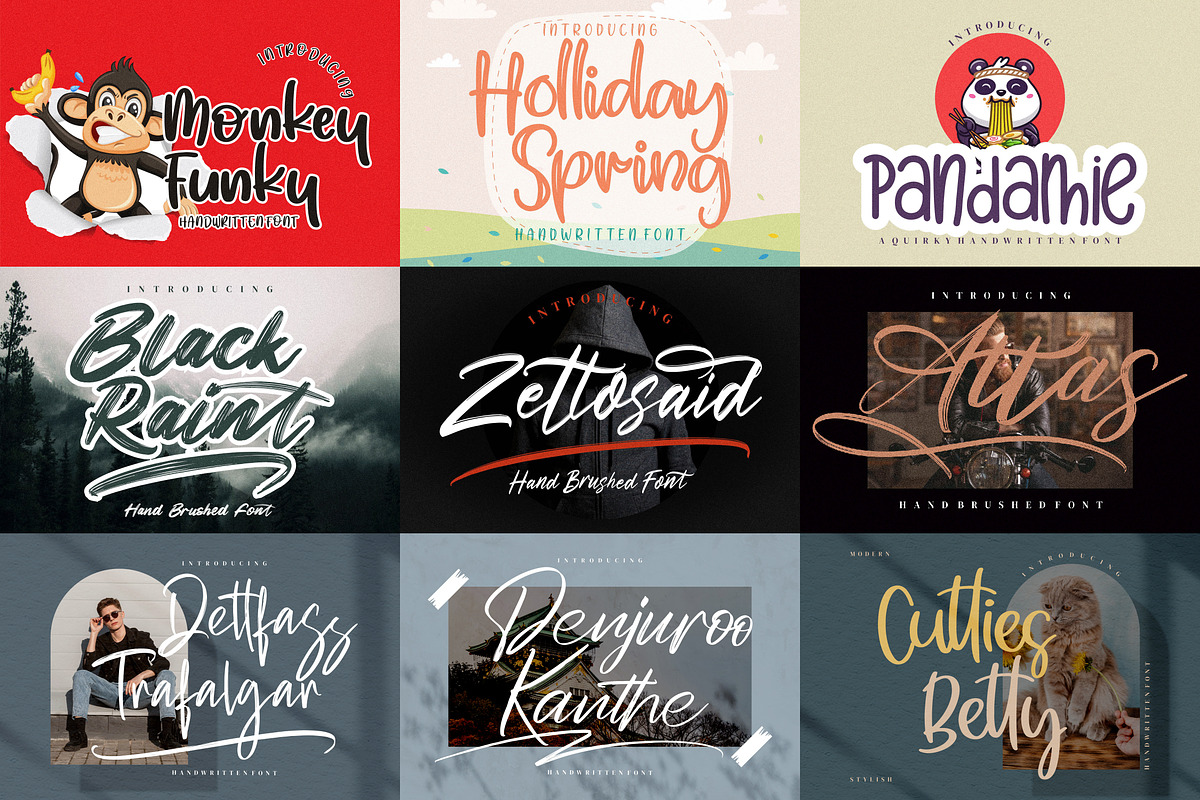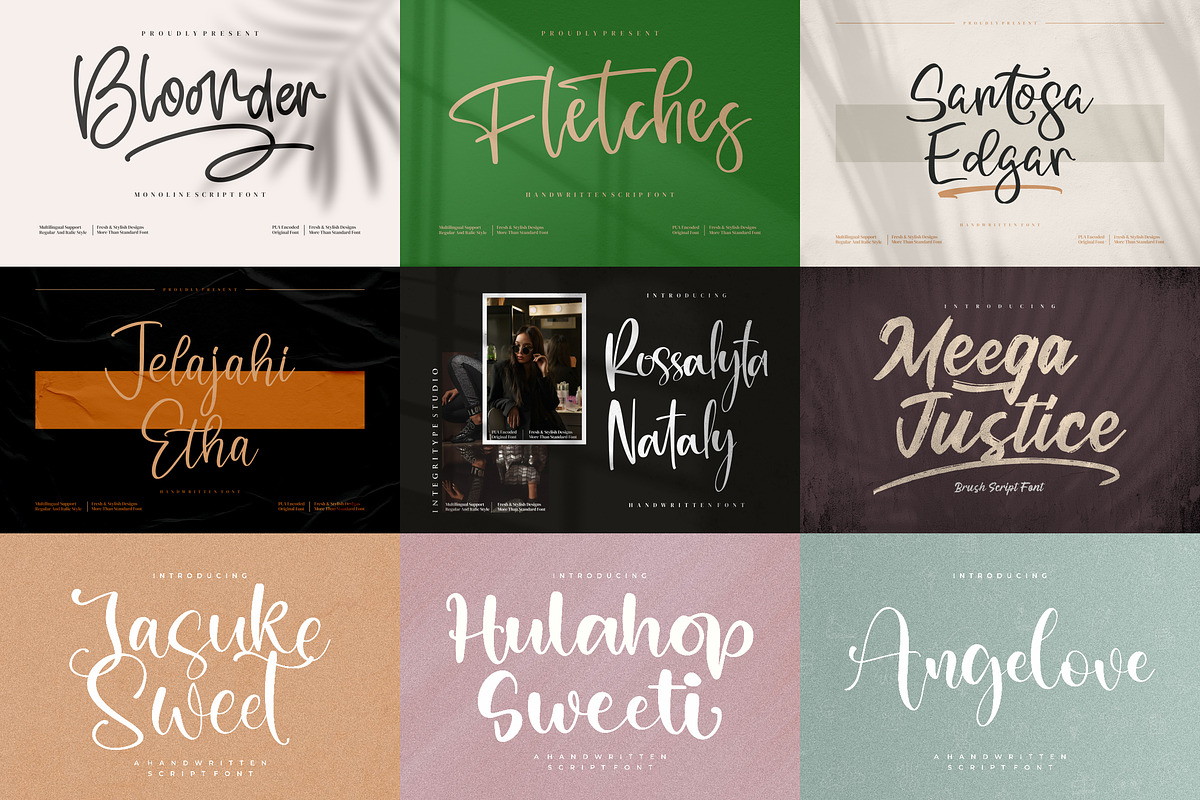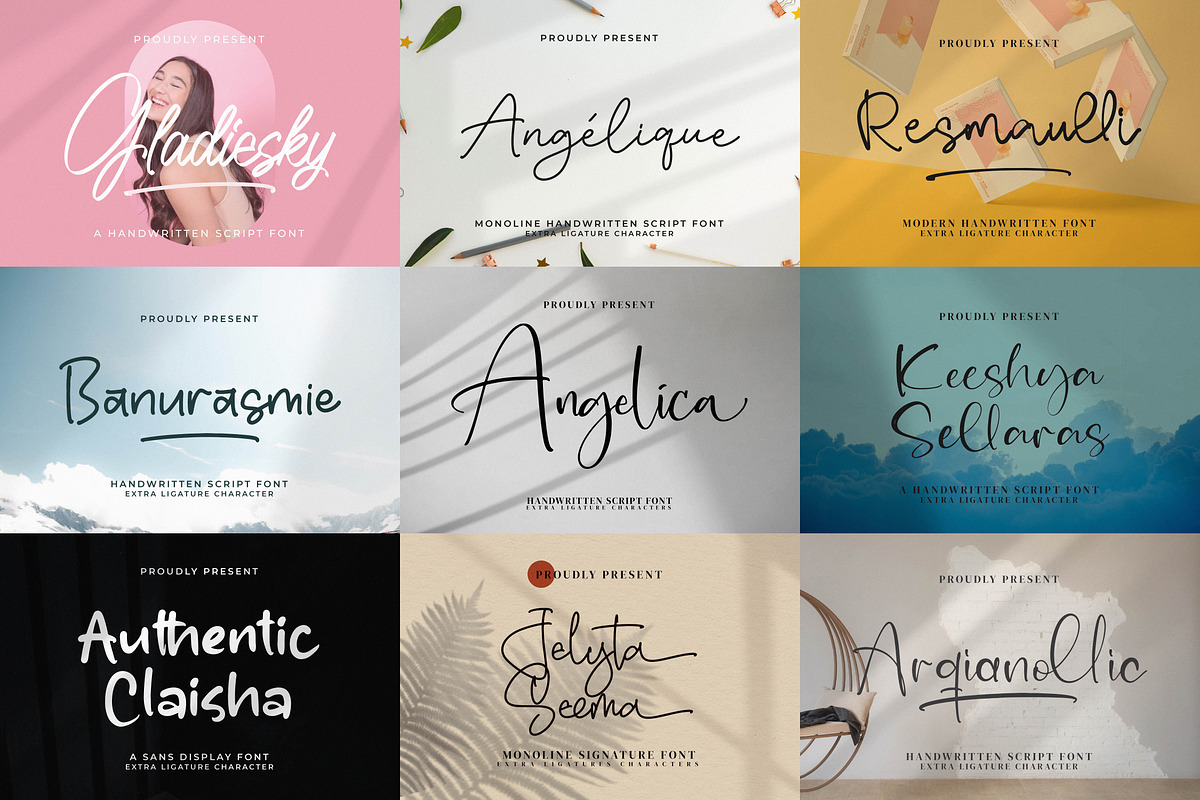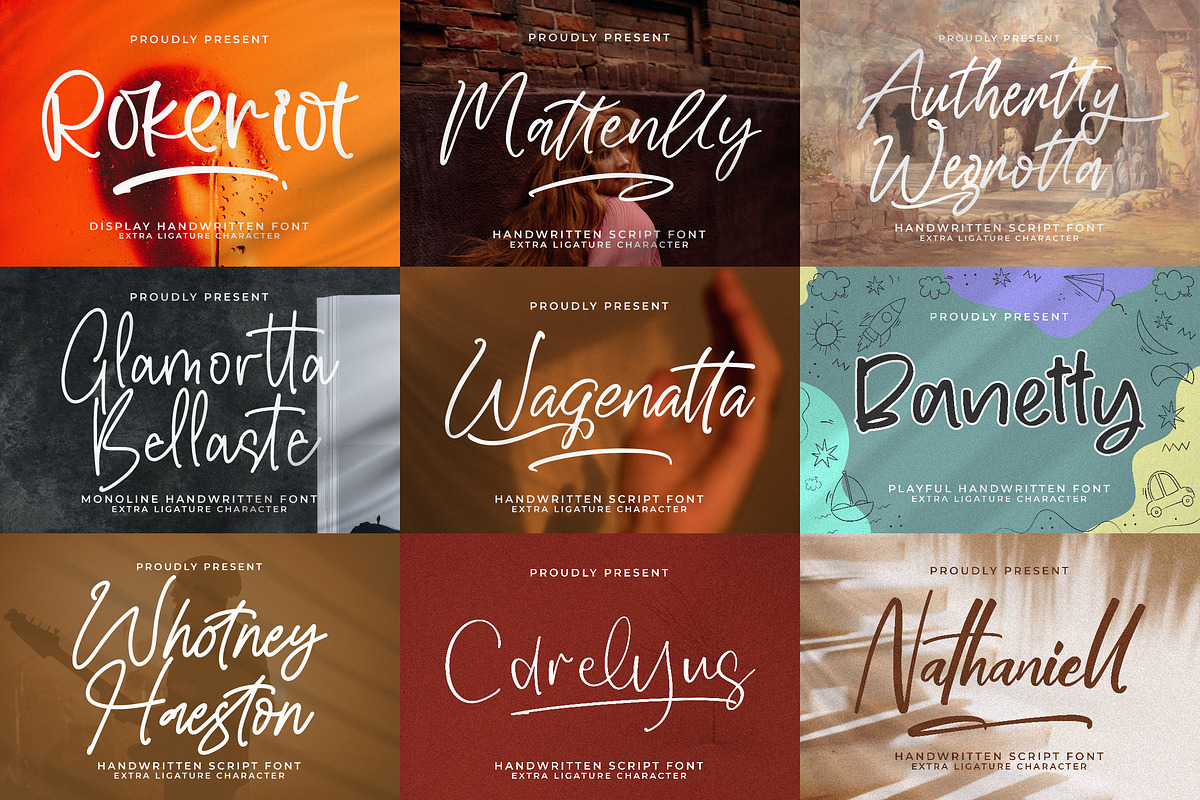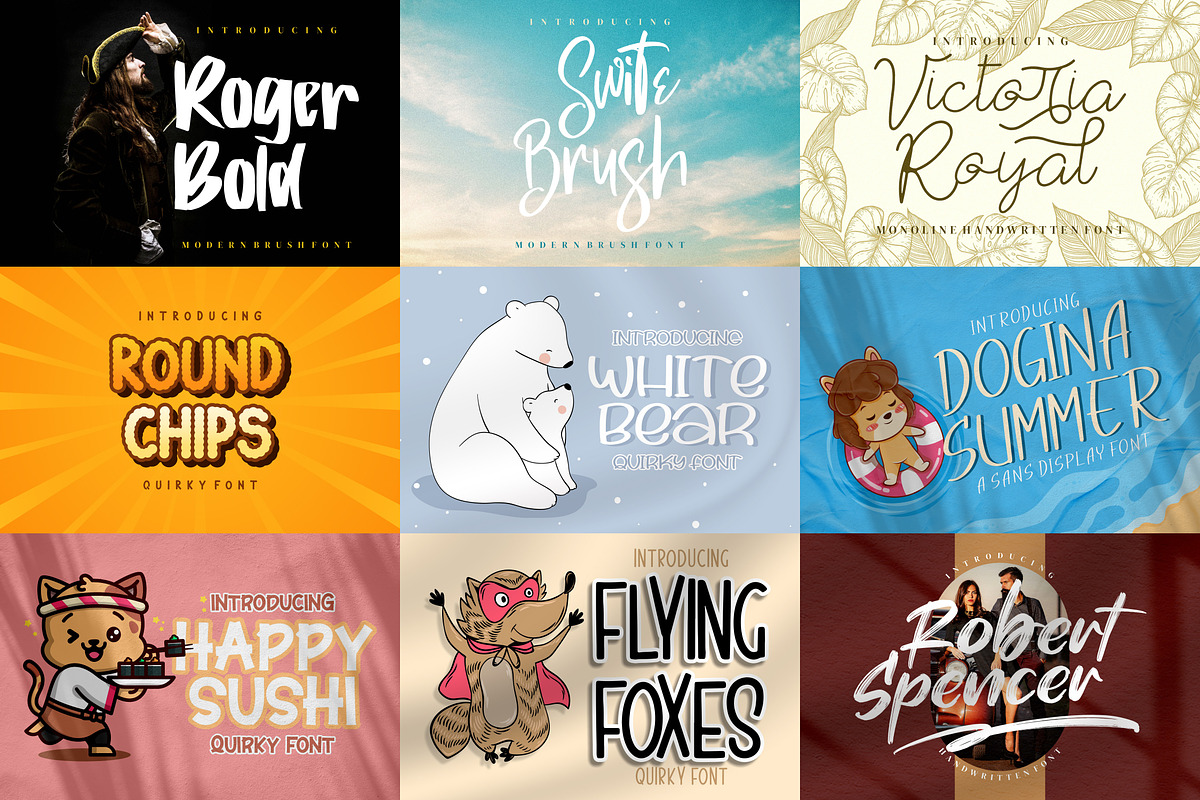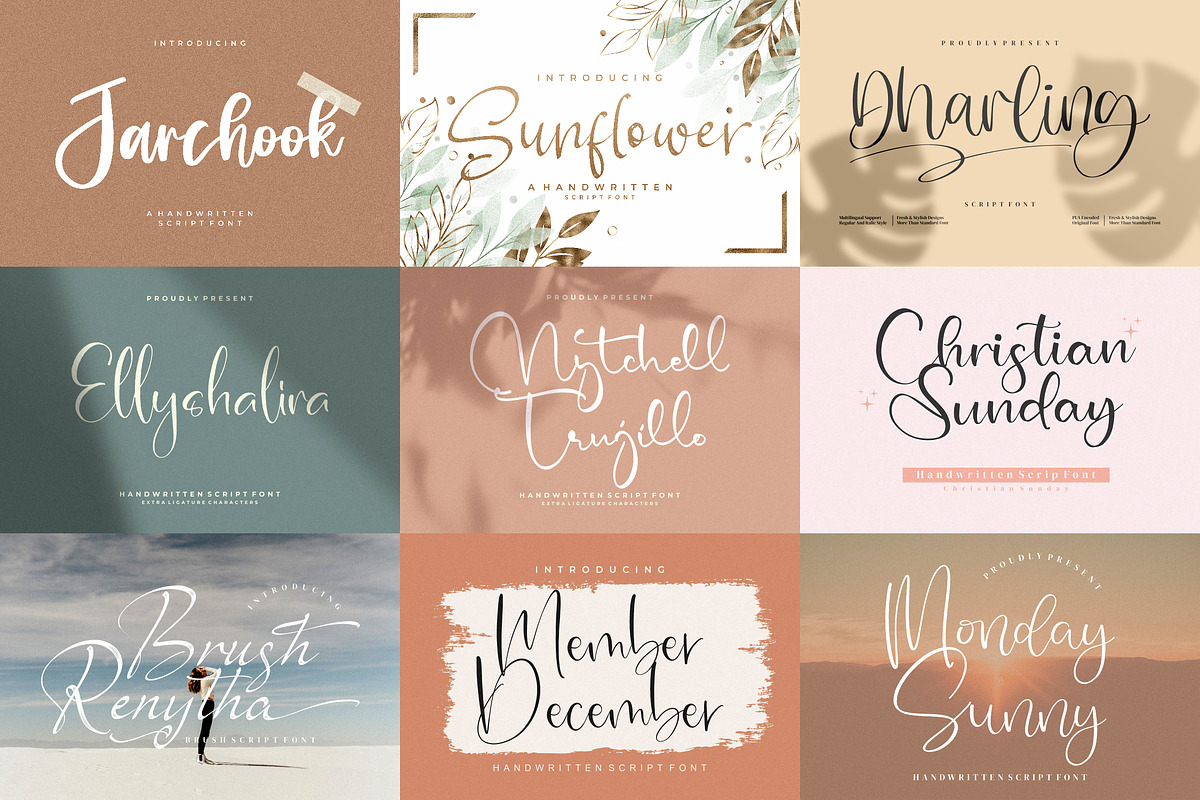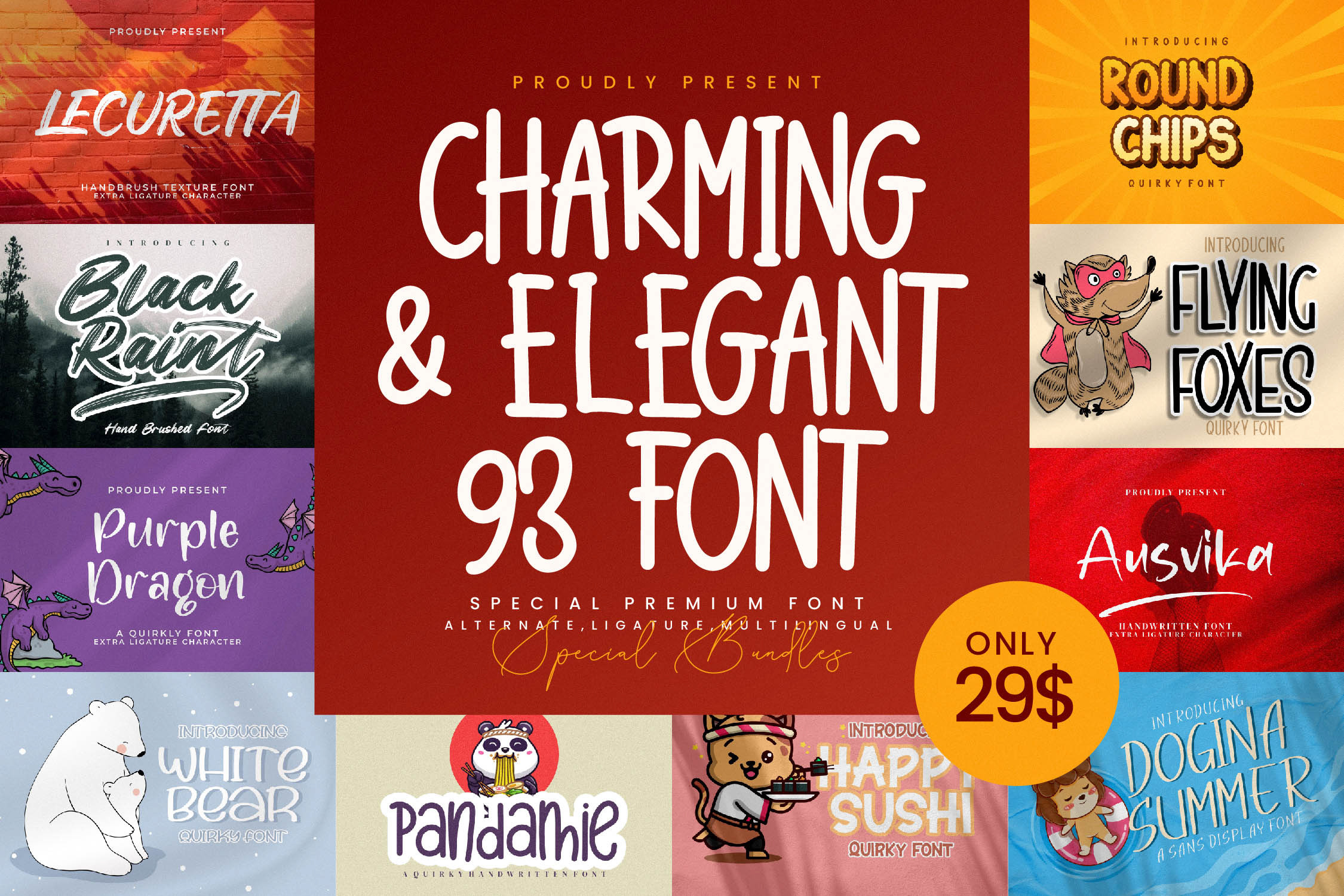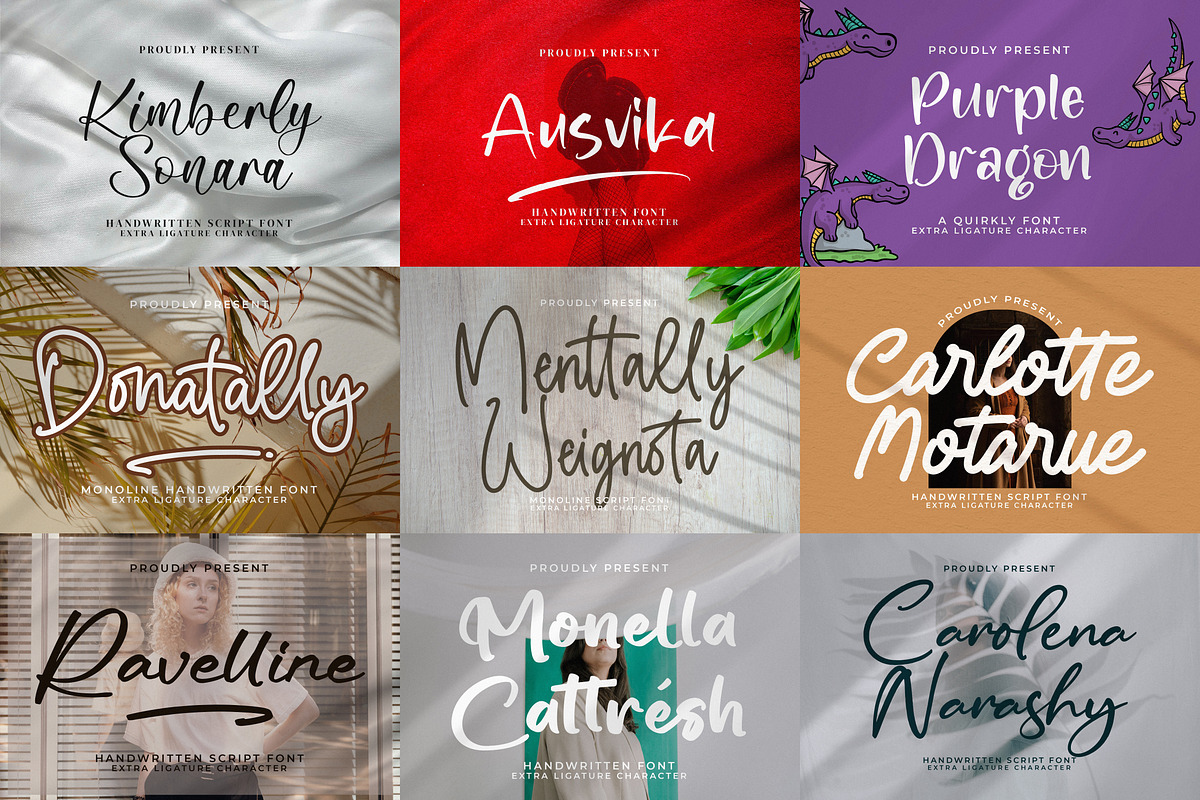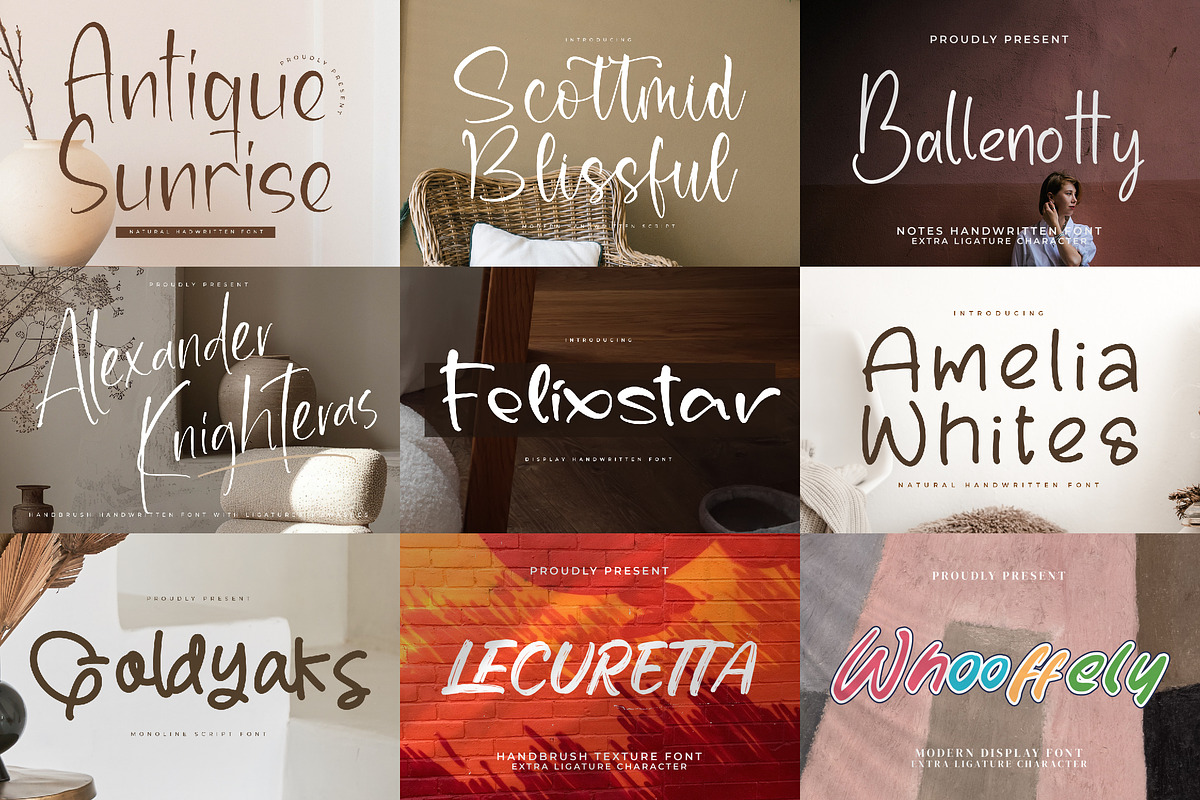
Cute Quirky Crafting | 93 Best Font
Charming and Elegant Handwritten Font Bundle includes 93 of the most selected popular fonts with a variety of styles such as Monoline, Cute Display, Quirky, Handwriting, etc. It comes with hundreds of glyphs, including alternate, ligatures, swashes, and international language support.